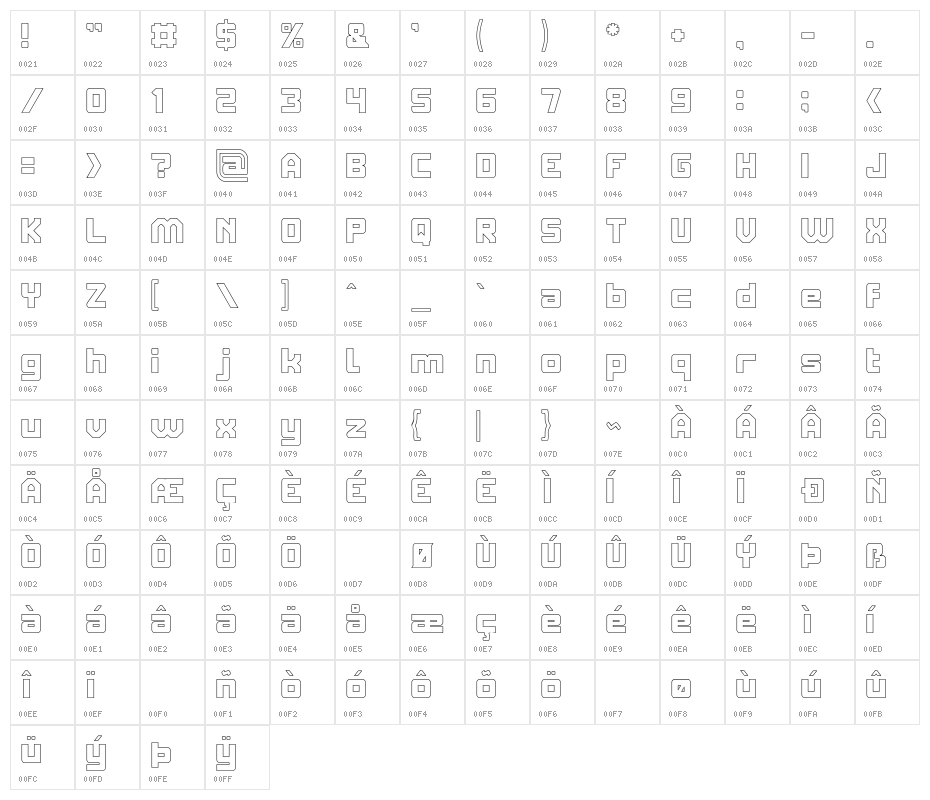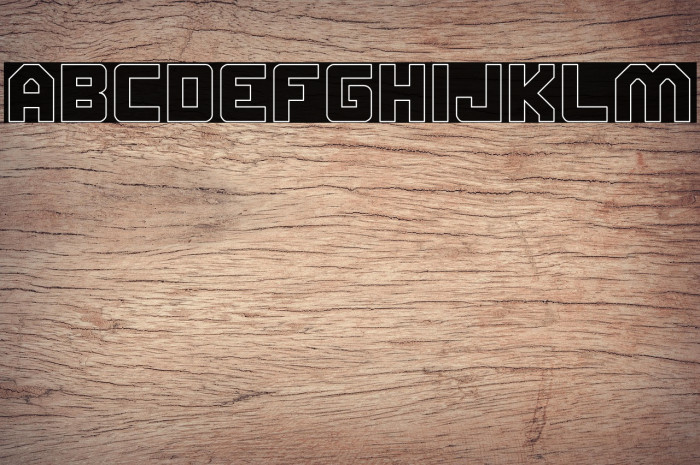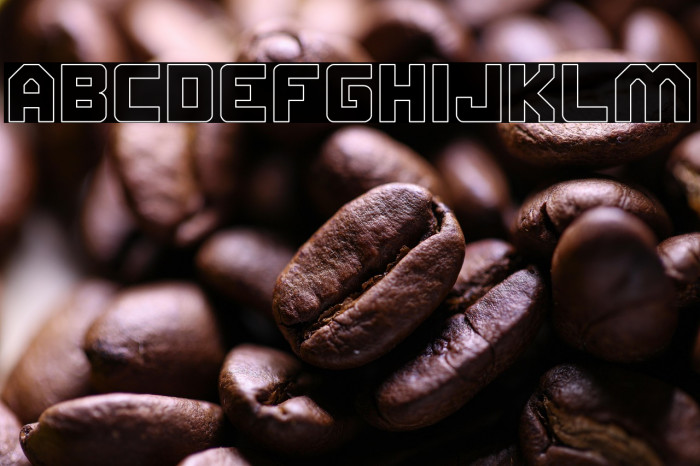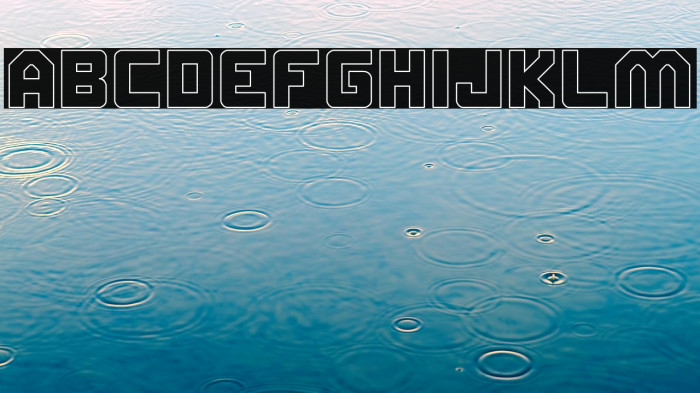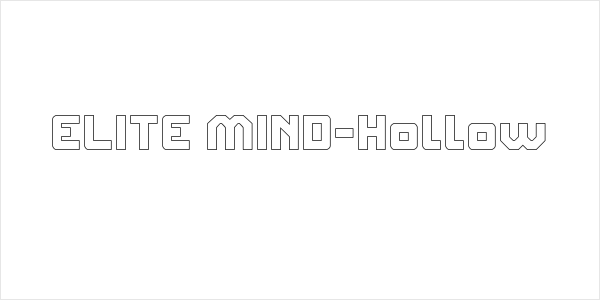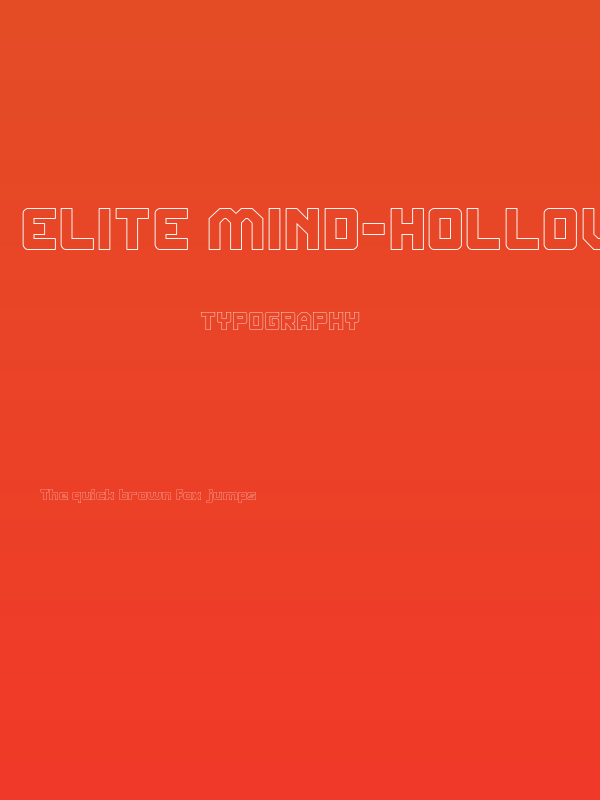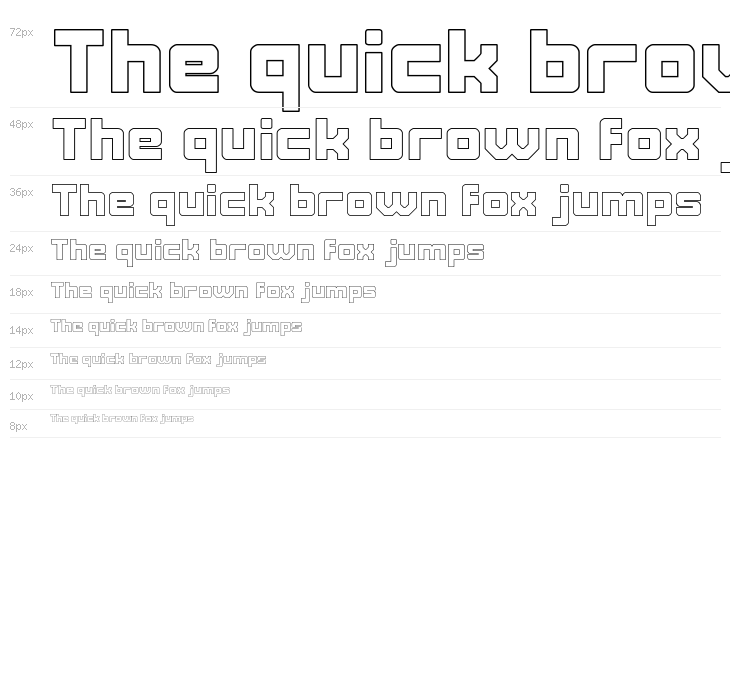
ELITE MIND-Hollow Font
ELITE MIND-Hollow Description
This font features a bold, geometric design with hollow interiors, creating a striking and modern appearance. The characters are constructed with clean, straight lines and sharp angles, giving it a futuristic and technical feel. The uppercase and lowercase letters maintain a consistent style, with uniform stroke widths and a balanced structure. The numerals and special characters are designed to complement the alphabet, ensuring a cohesive look across all elements. This font's hollow design makes it ideal for projects that require a standout, eye-catching typeface.
| Proposed Projects | Ideal for technology branding, futuristic posters, video game titles, and sci-fi themed designs. |